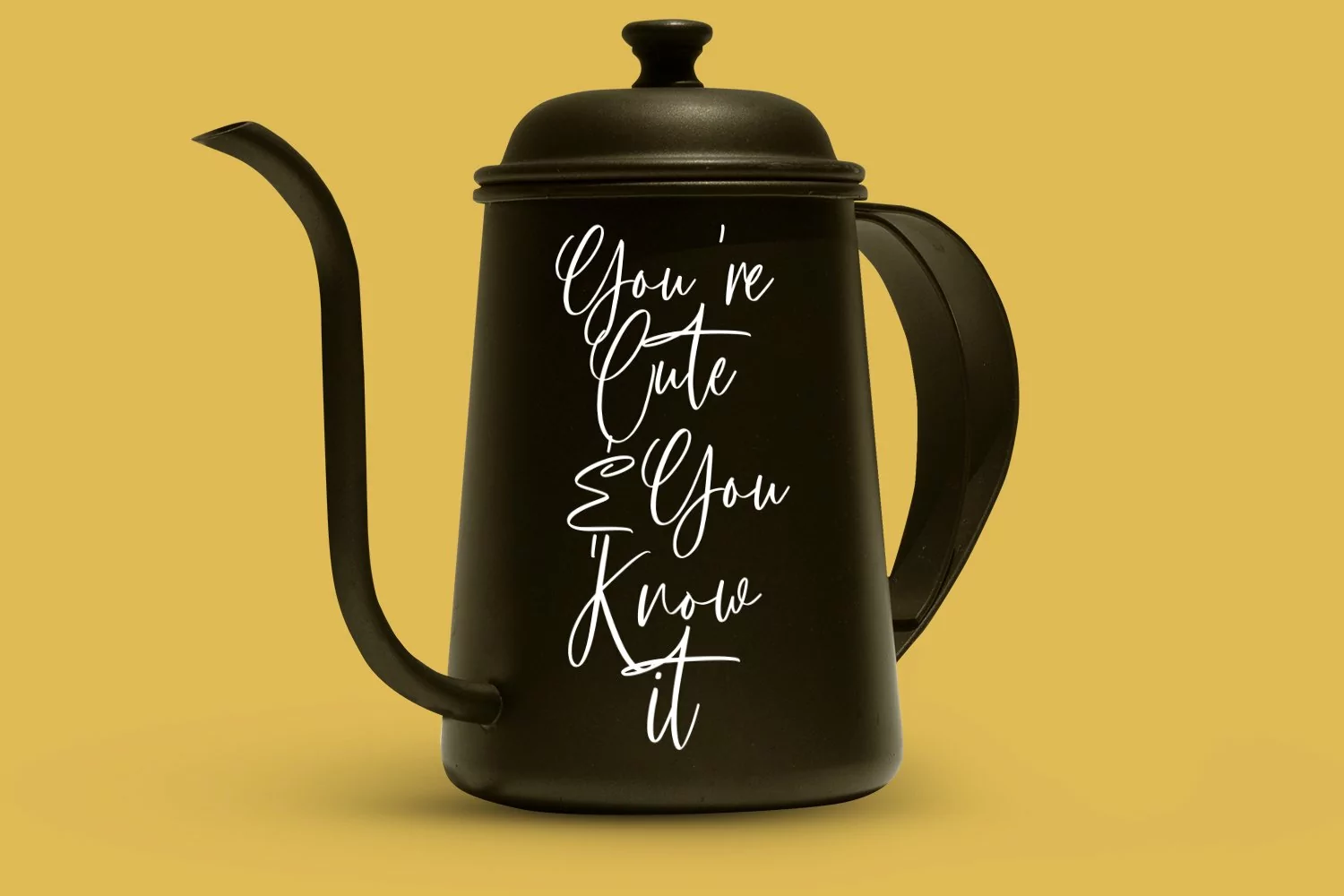
Fortunelimes is curvy casual script font, with felt-tip stroke, slant and fun character. It has Opentype features ligatures of character, To give you an extra creative work. Fortunelimes script font support multilingual more than 100+ language. This font is good for logo design, Social media, Movie Titles, Books Titles, a short text even a long text letter and good for your secondary text font with sans or serif. Make a stunning work with Fortunelimes font.